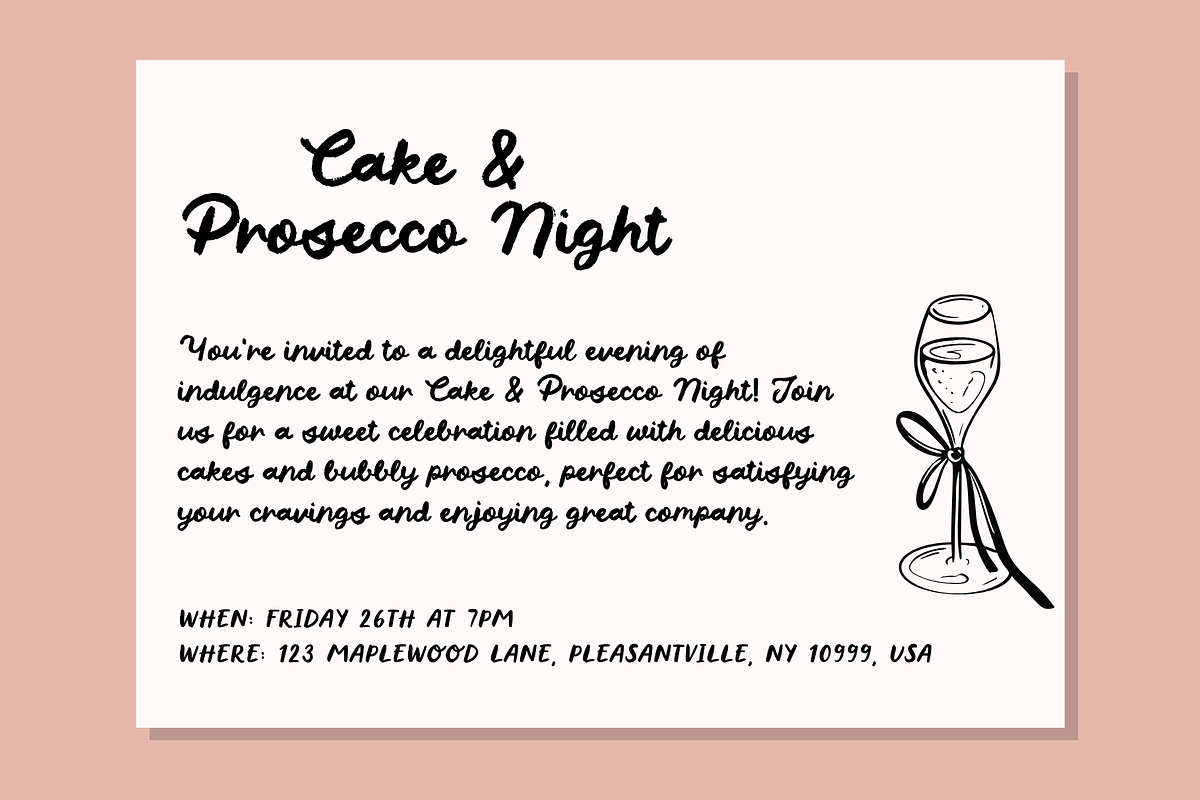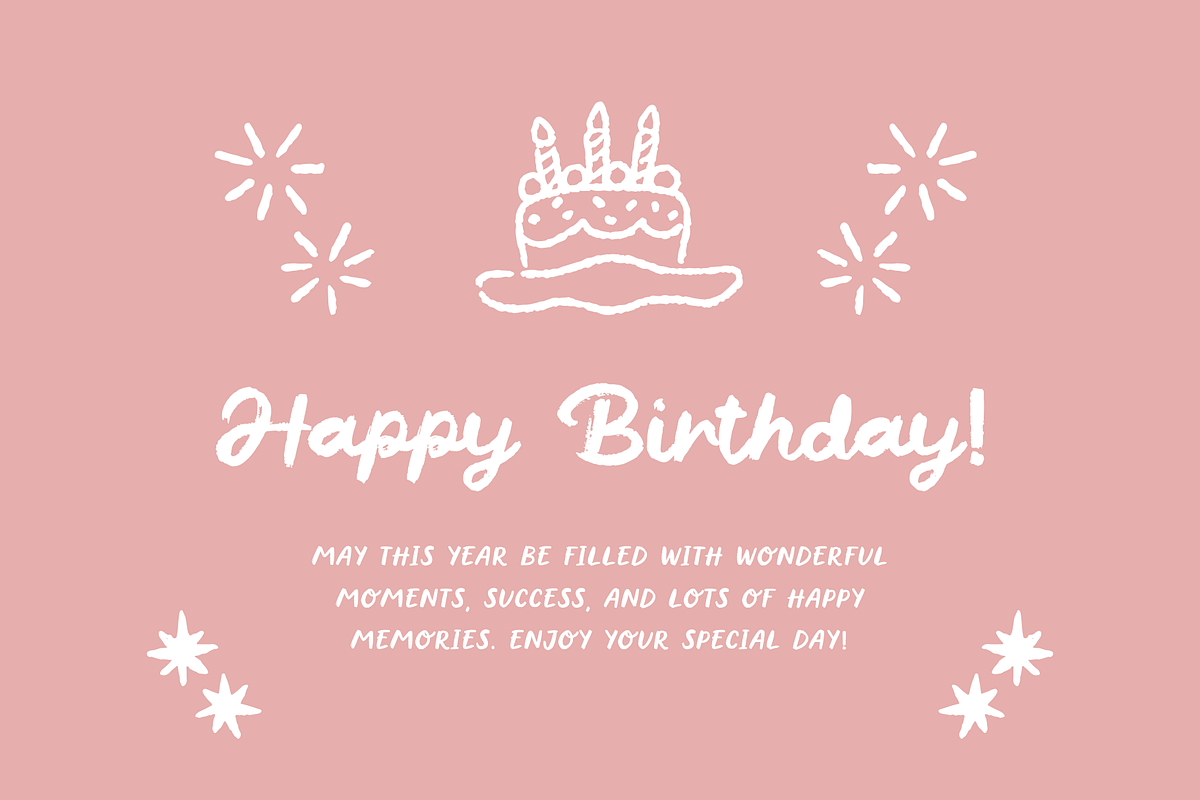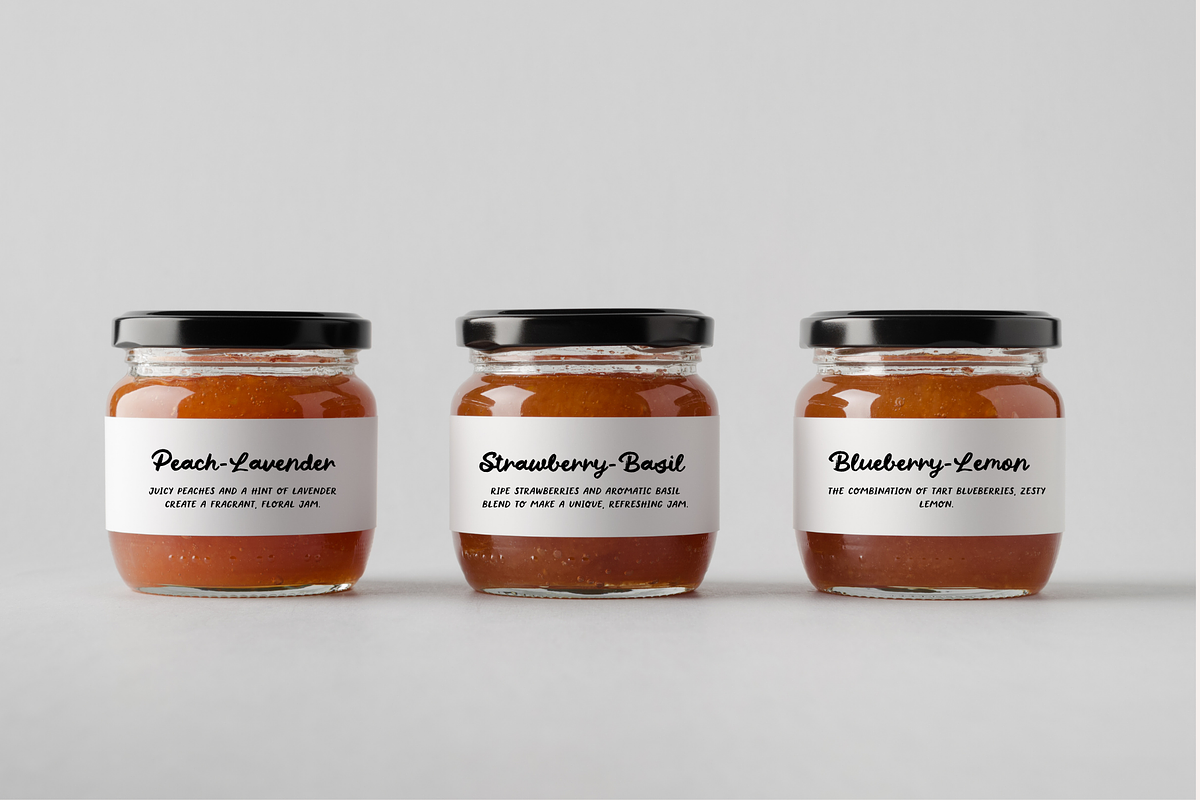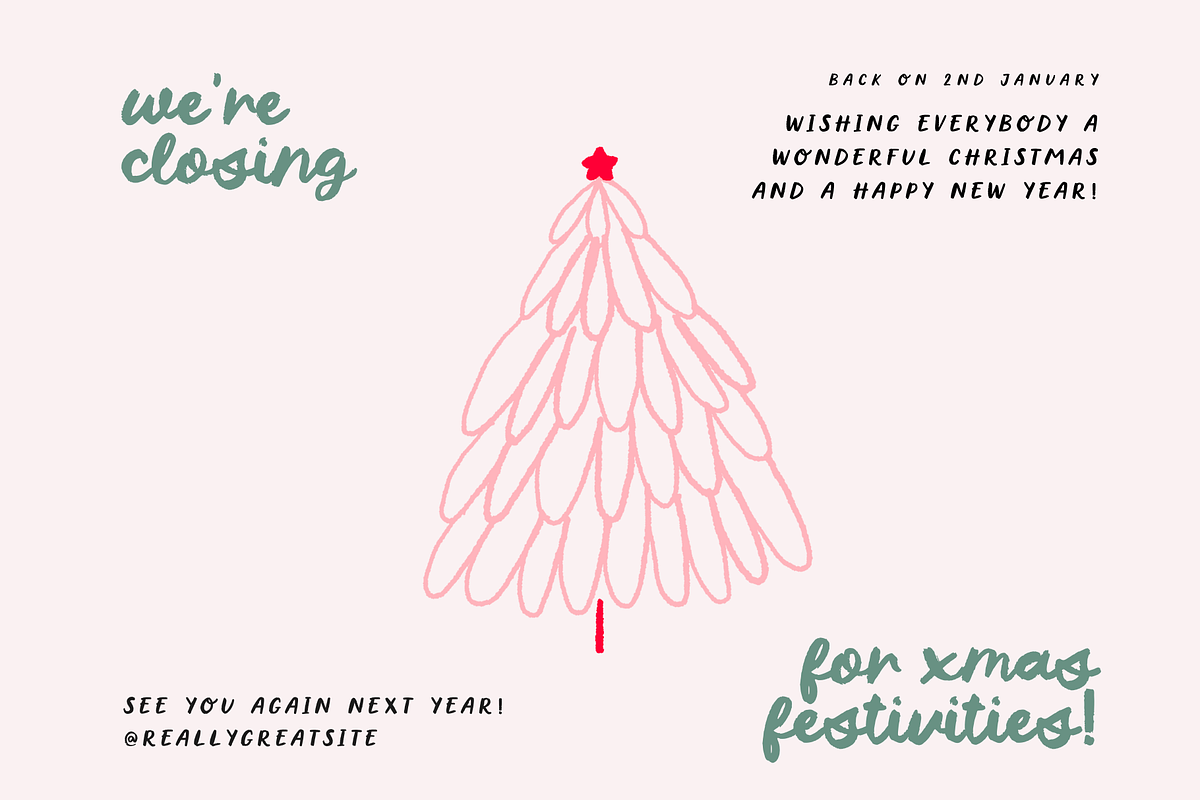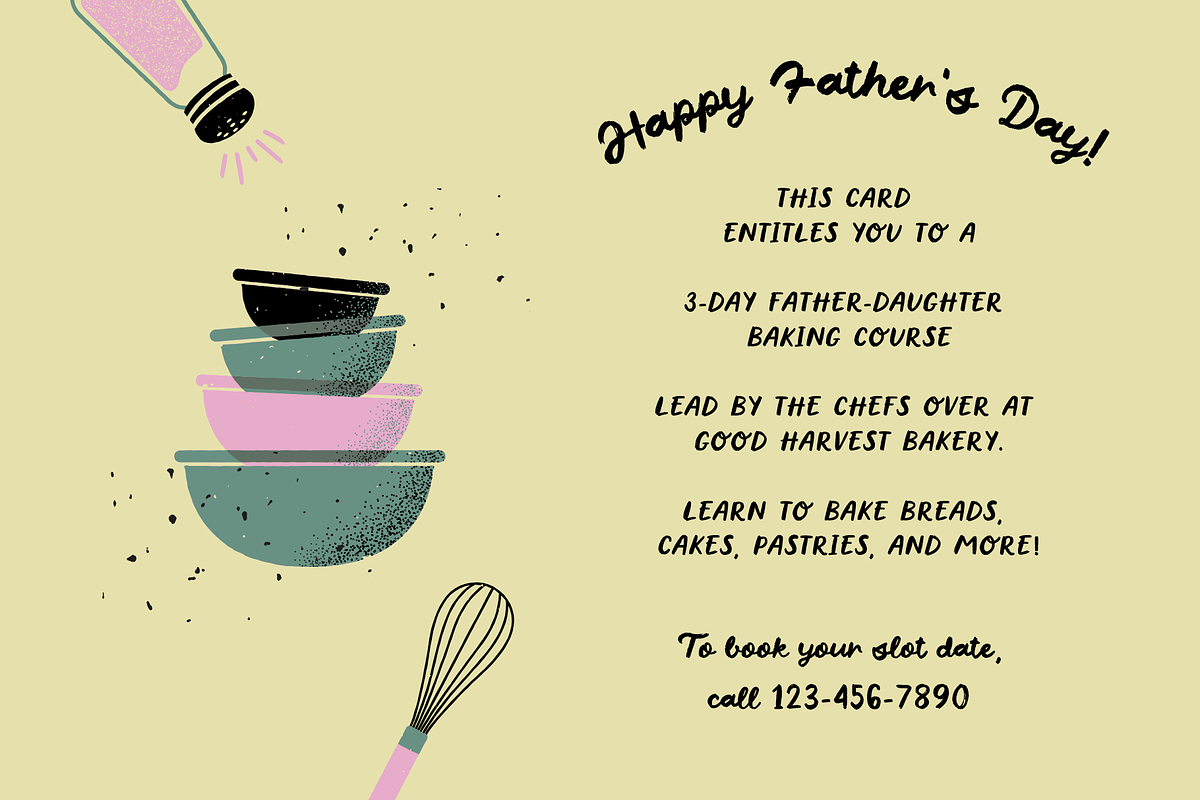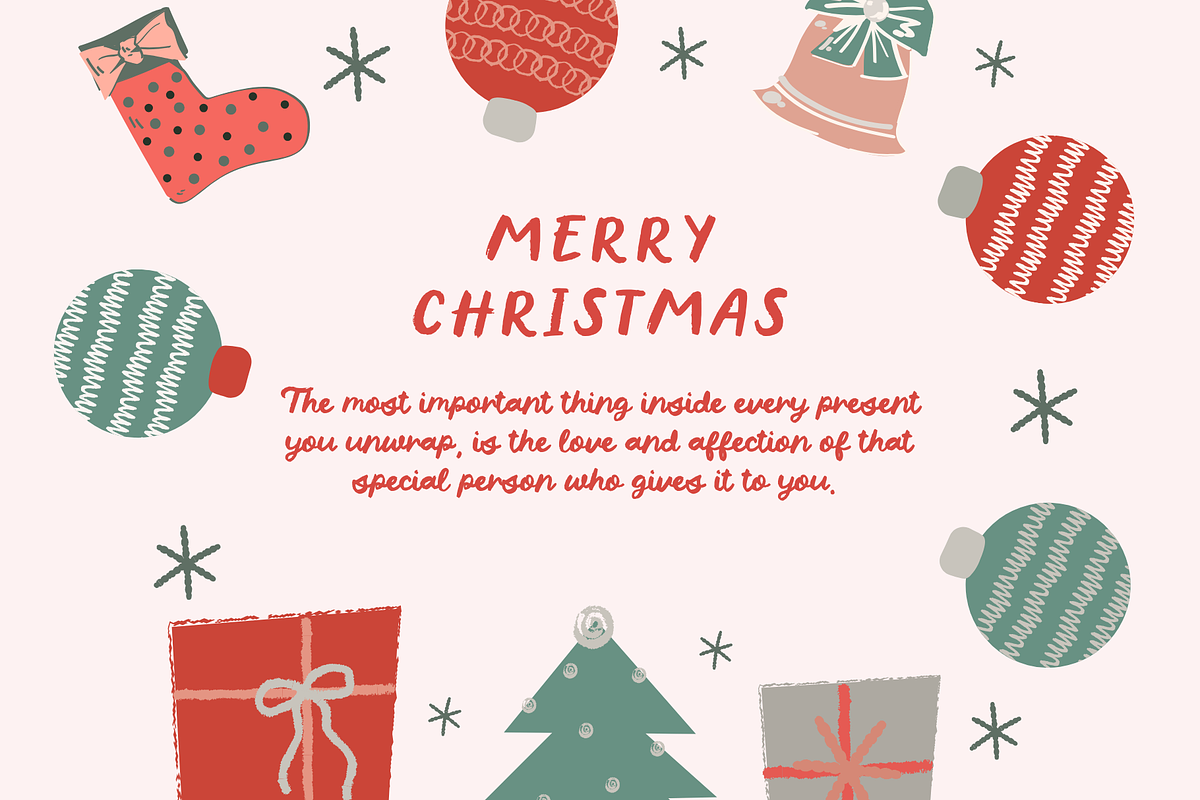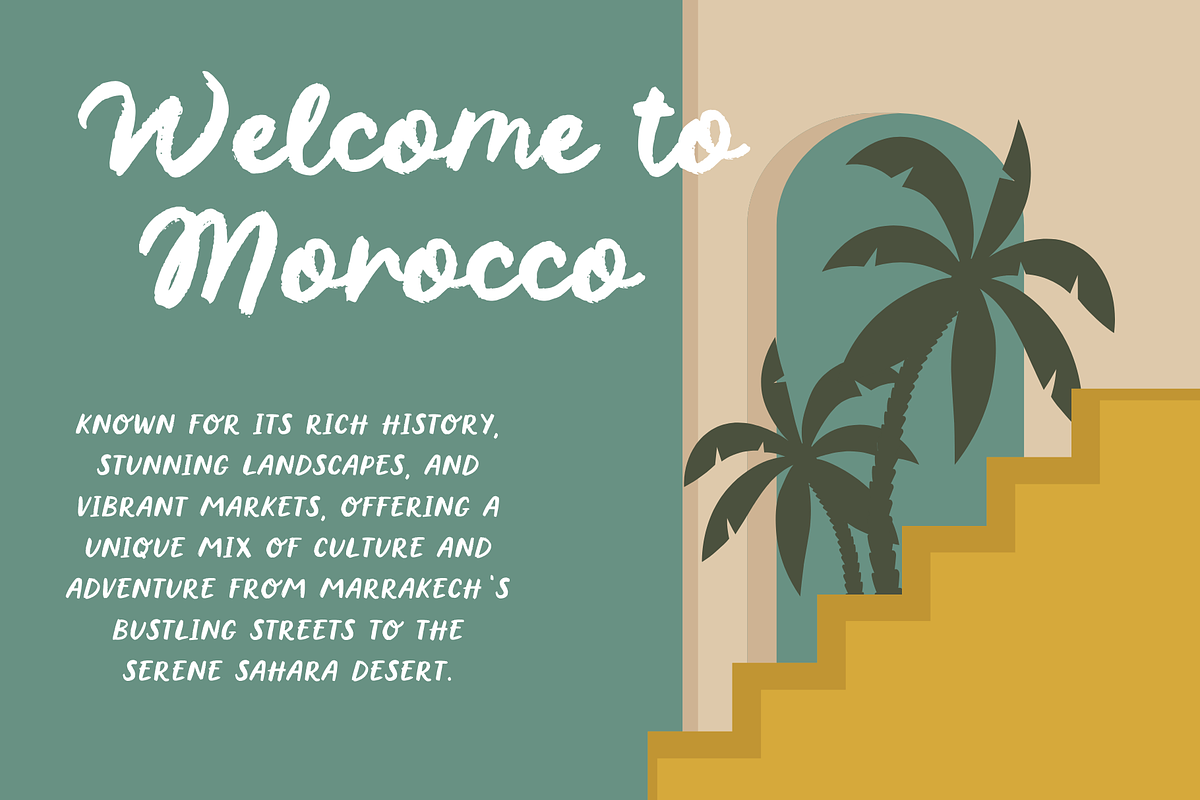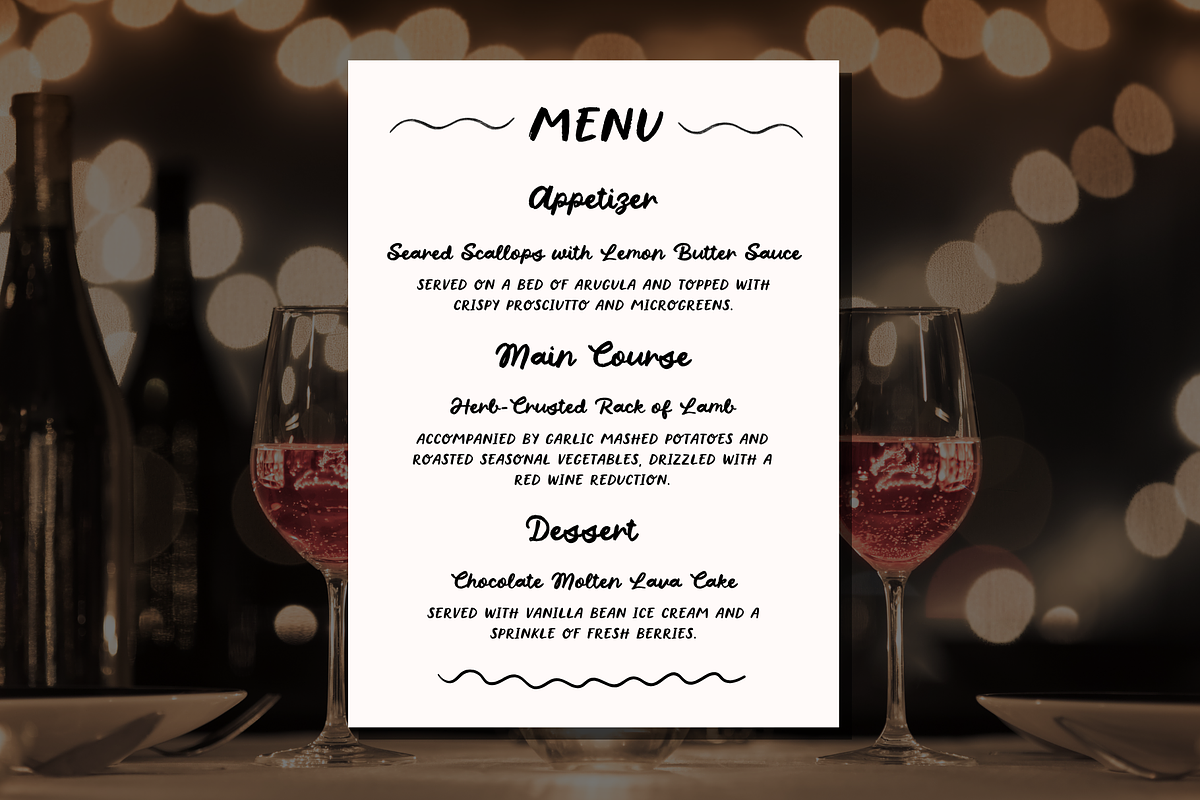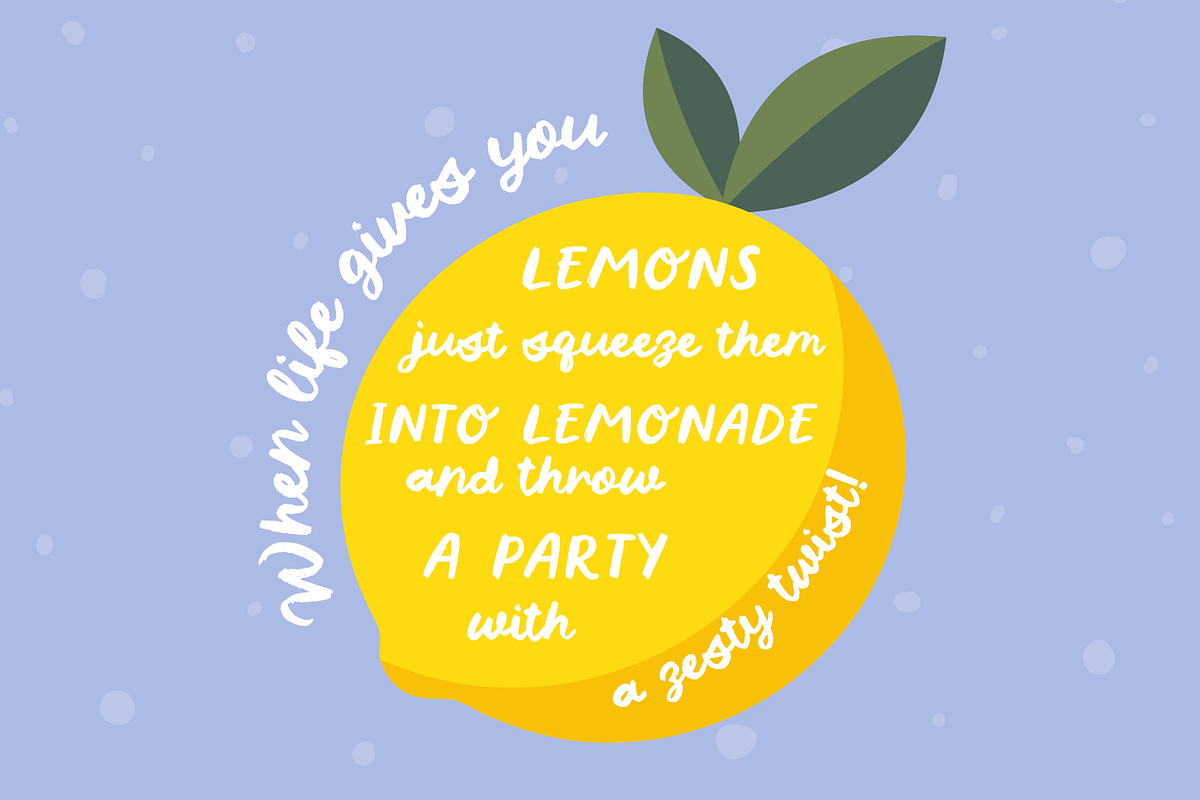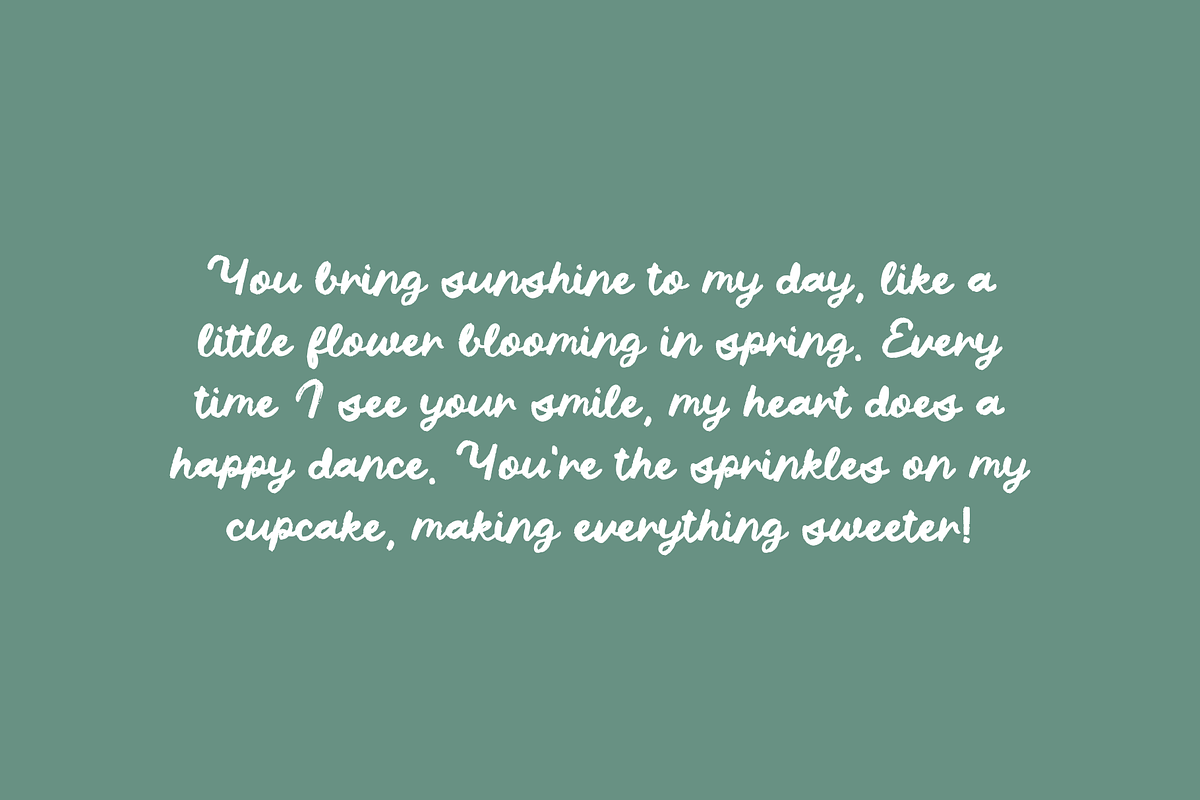
Ambrosia and Honey Font Duo
Introducing a Handwritten Brush Font Duo, the perfect addition to your creative toolkit! This playful typeface duo is designed to add a splash of personality to your projects. Whether you're creating invitations, branding materials, or social media graphics, this duo adds a personal touch that captivates and inspires.
Each font is meticulously designed to ensure readability while maintaining the charm of handwritten artistry.
⚠️ Note! These fonts are heavily distressed and NOT good for cutting machines. ⚠️